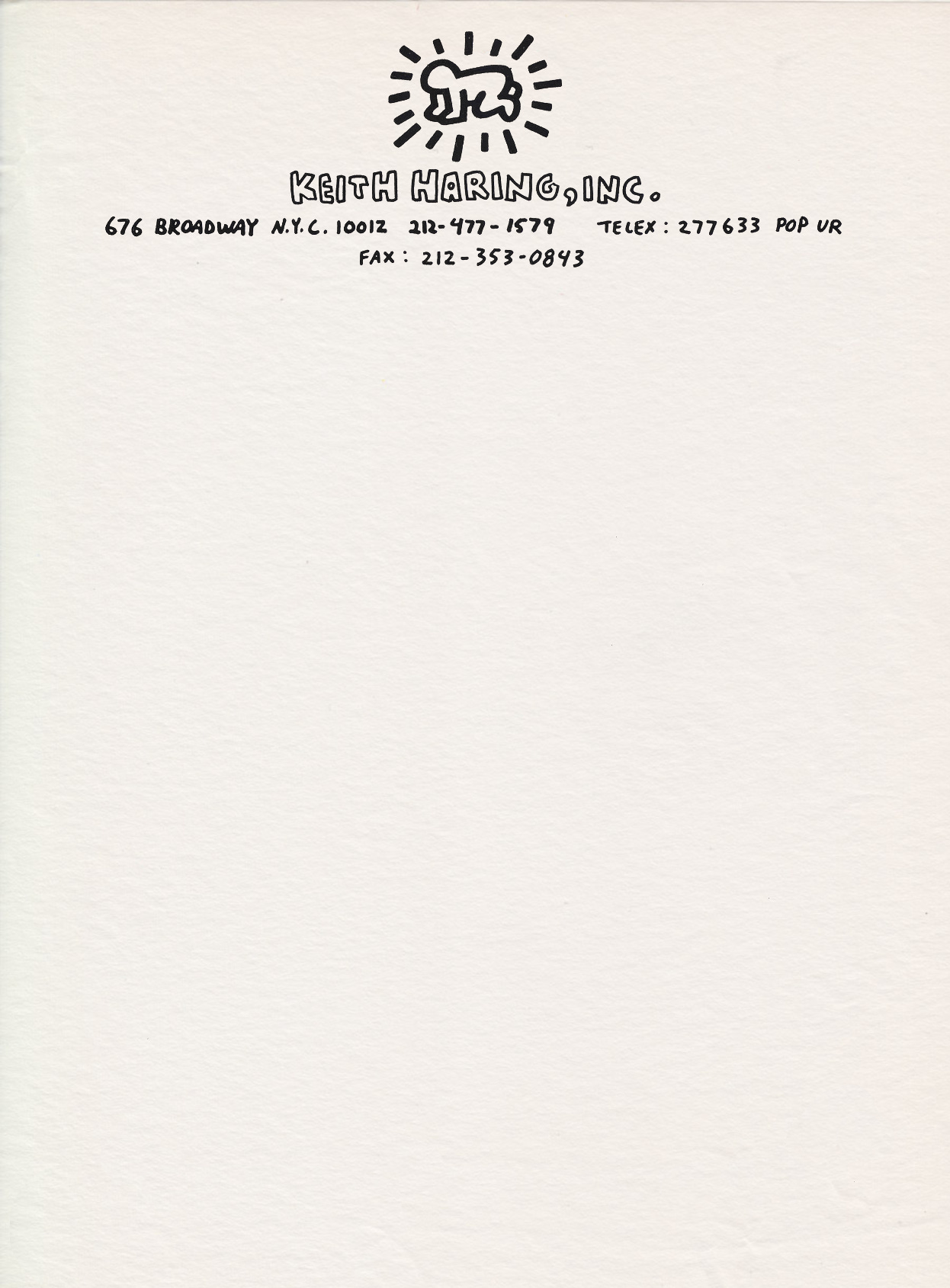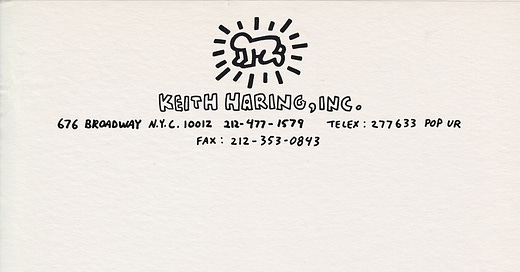
Simple yet unmistakably his, this hand-drawn letterhead from Keith Haring features his iconic radiant baby—a symbol of innocence, energy, and hope. This particular version of his stationery was used in 1989, the year before his untimely death at the age of 31.